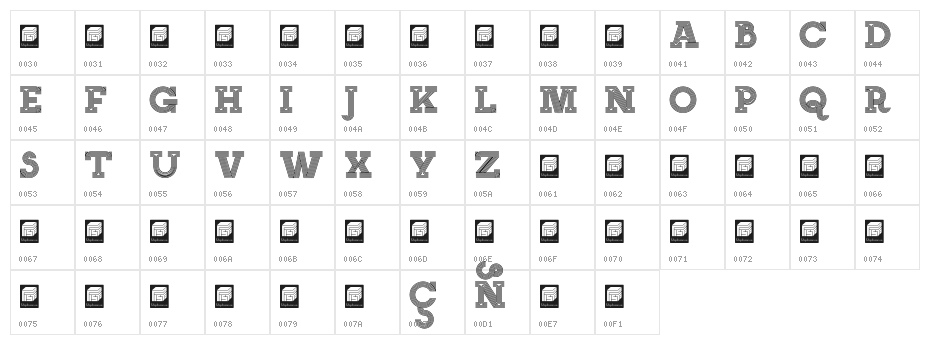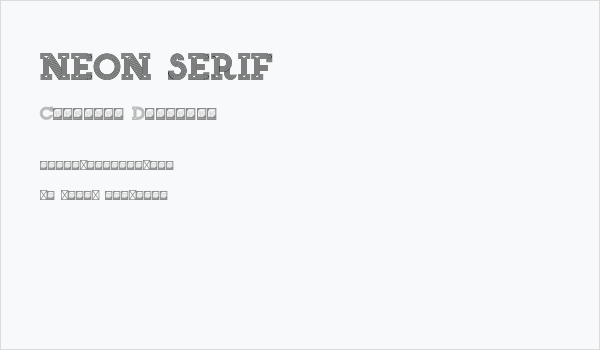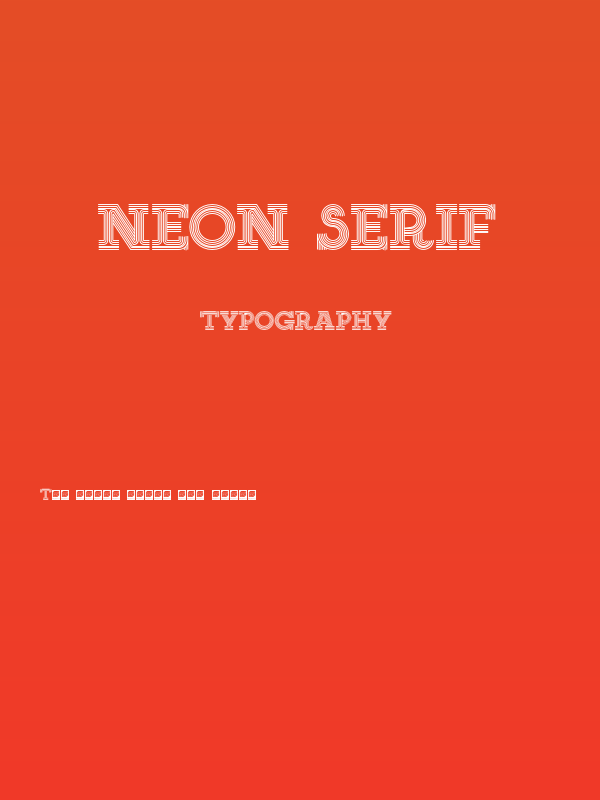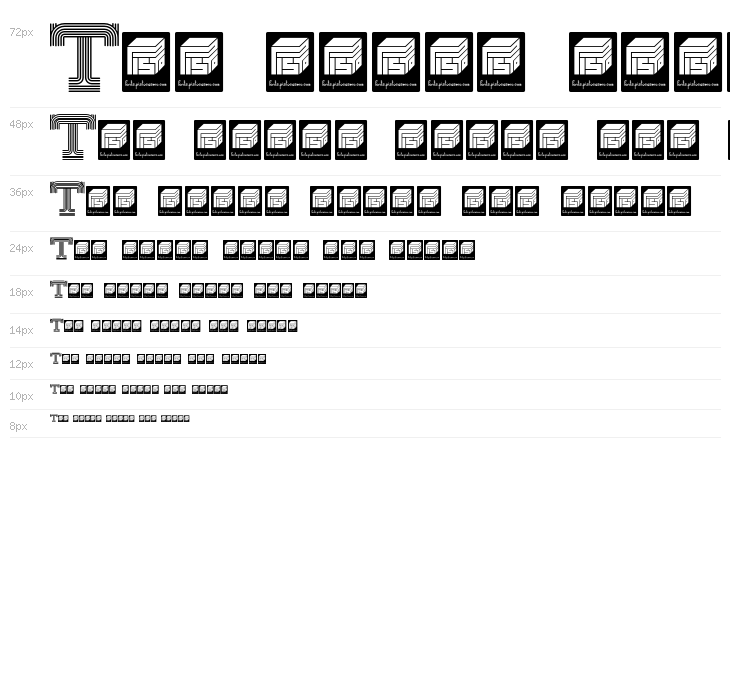
NEON SERIF Font
NEON SERIF Description
This font features a bold, decorative style with a distinct layered appearance. Each letter is constructed with multiple parallel lines, creating a sense of depth and dimension. The uppercase letters are uniform in height, with sharp angles and clean lines that give a modern yet retro feel. The design is reminiscent of neon signs, making it eye-catching and suitable for attention-grabbing headlines or logos. The absence of lowercase letters and numbers suggests a focus on display purposes rather than body text.
Overall StyleModern, Retro
Proposed ProjectsIdeal for use in branding, signage, posters, and any project requiring a striking, retro-modern aesthetic.